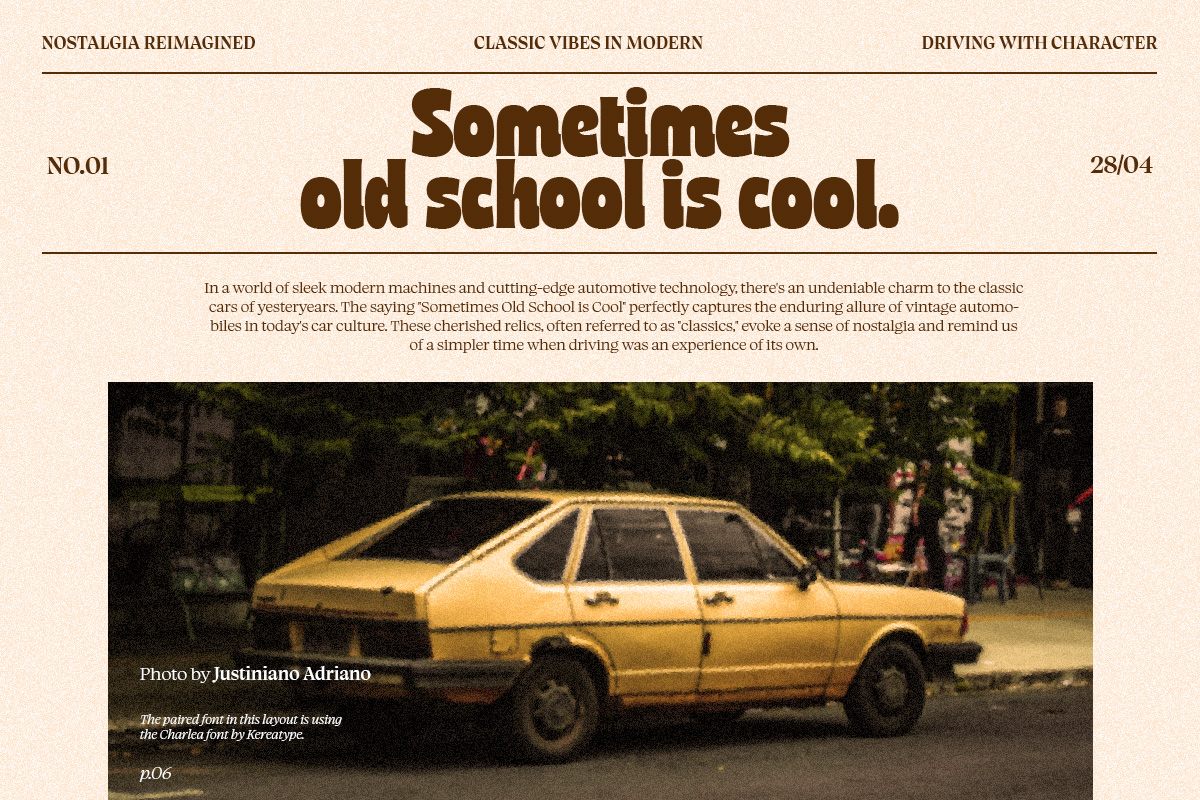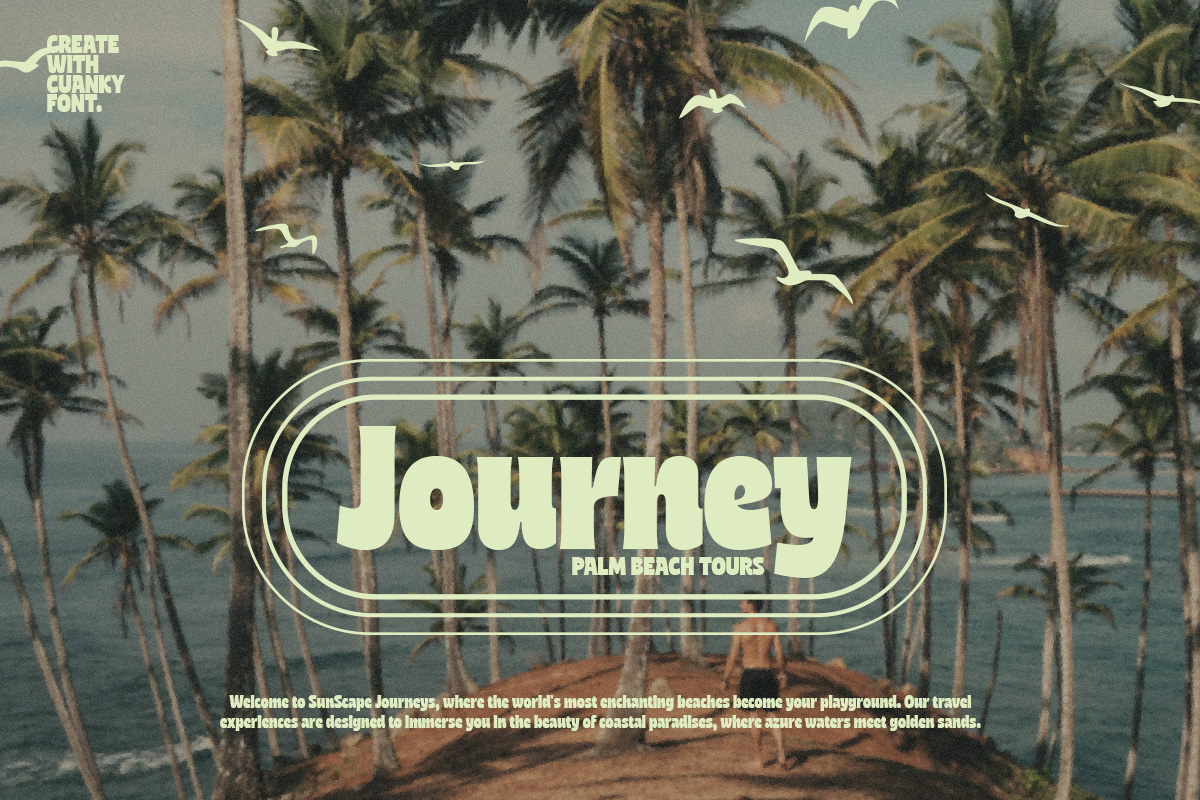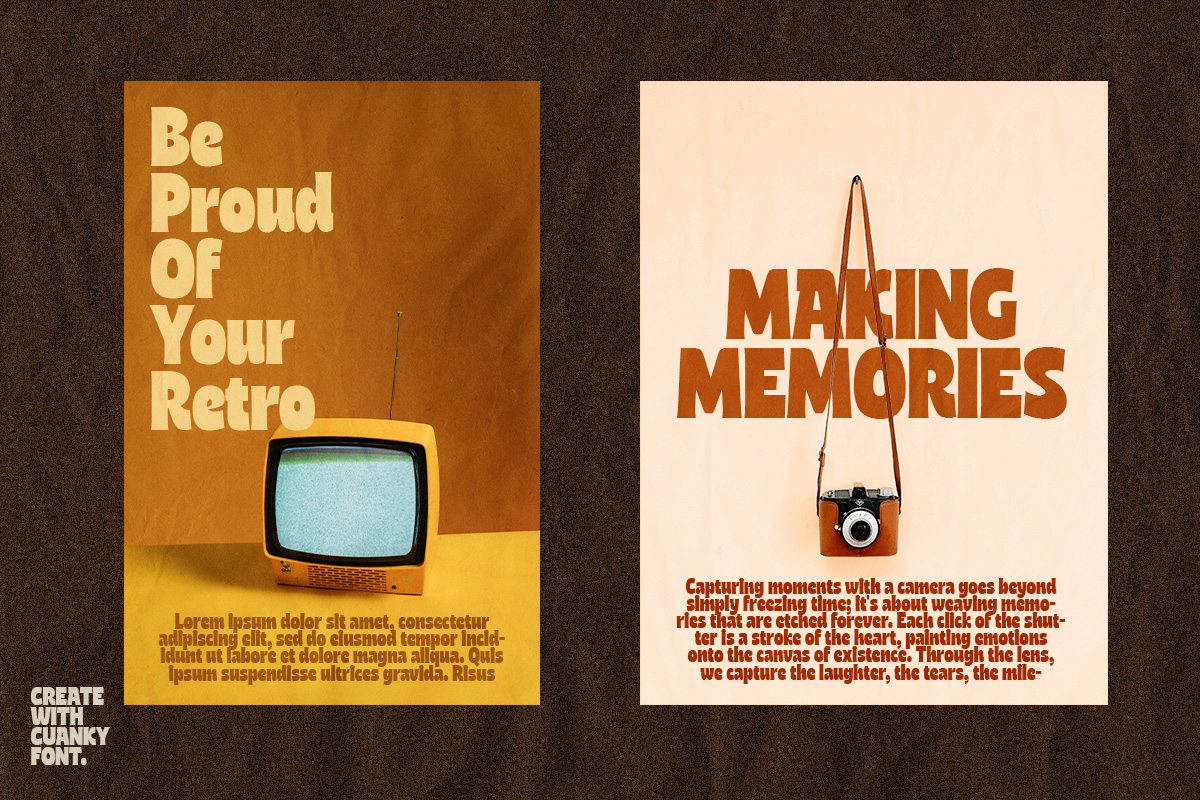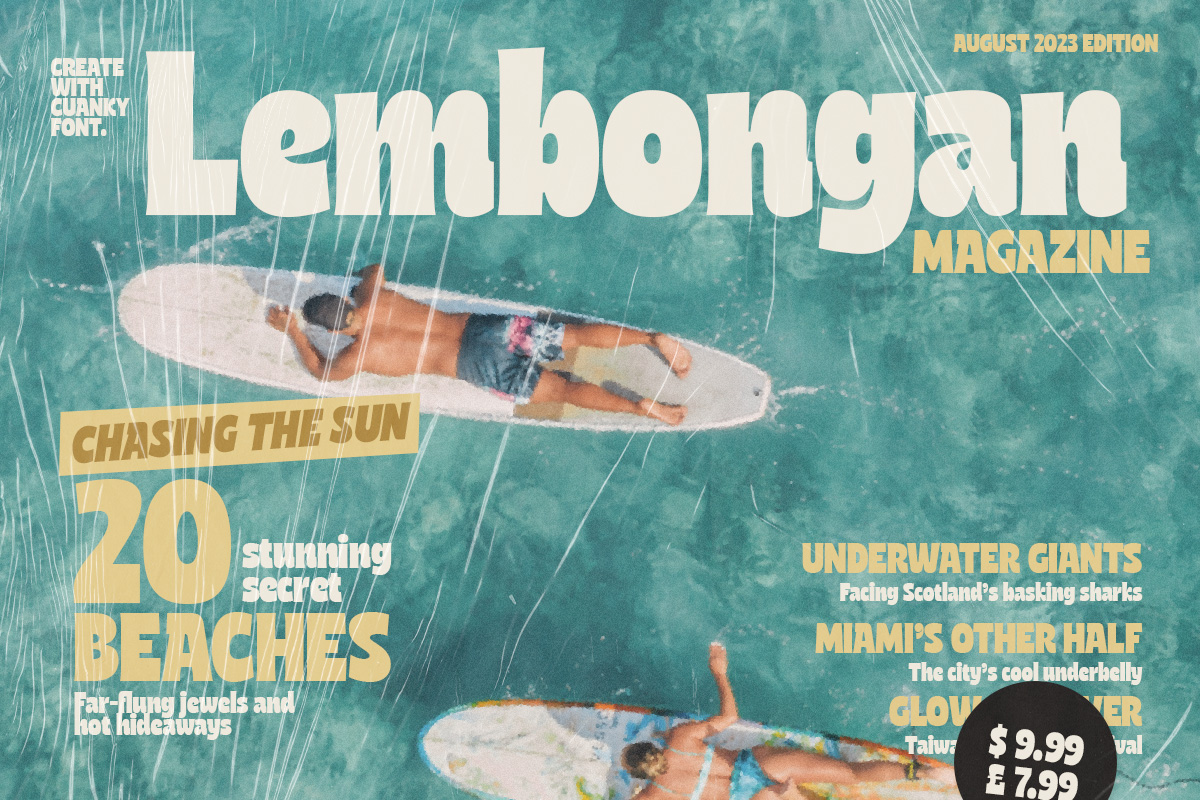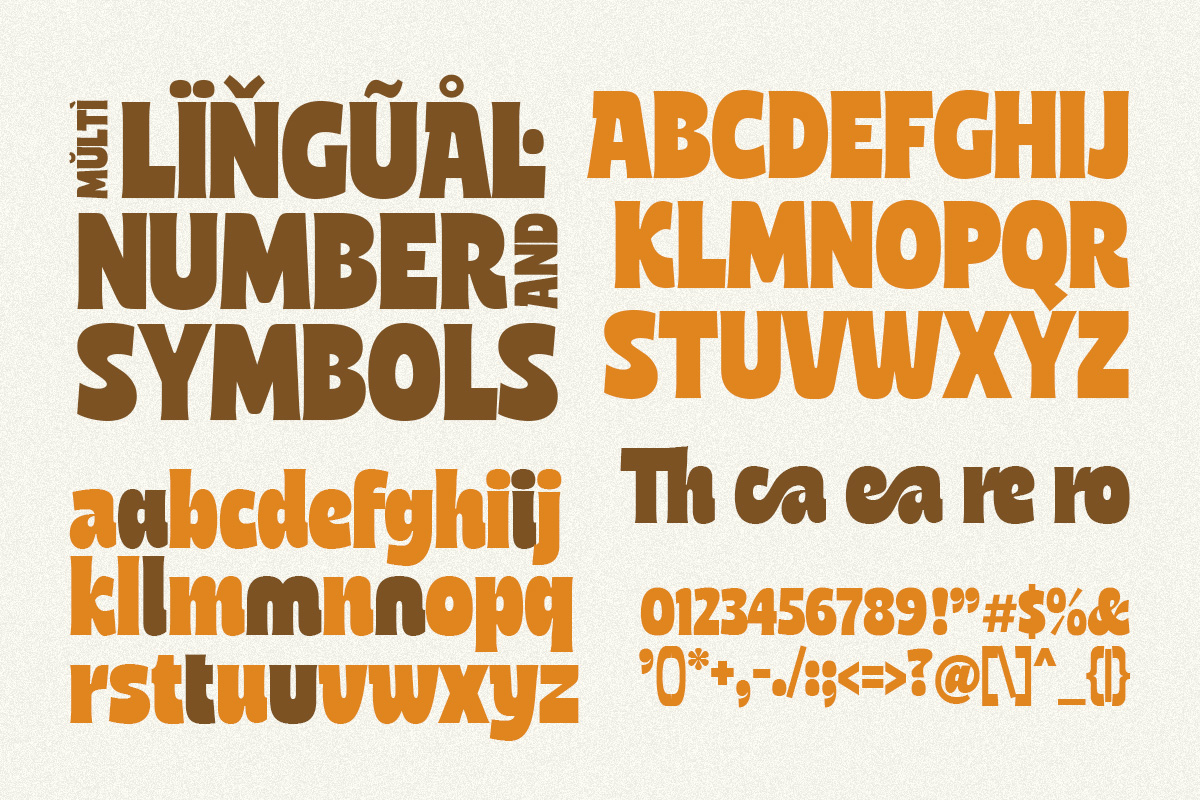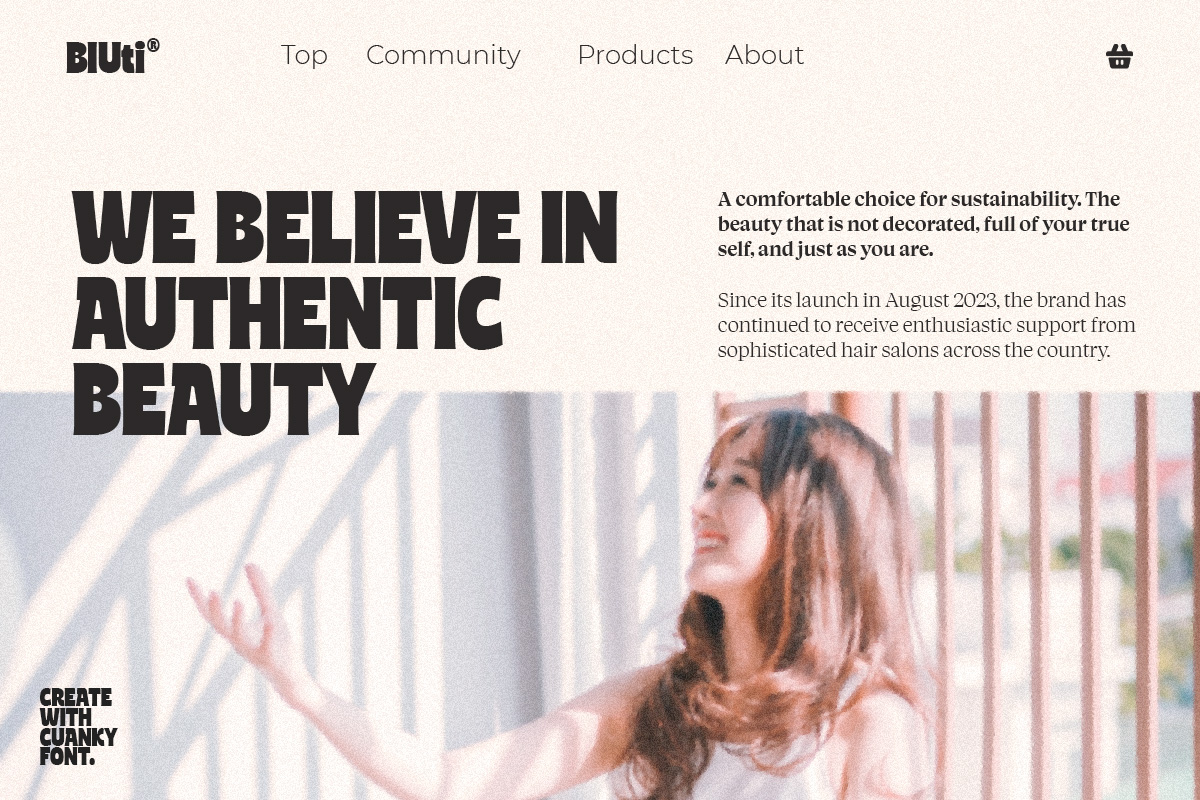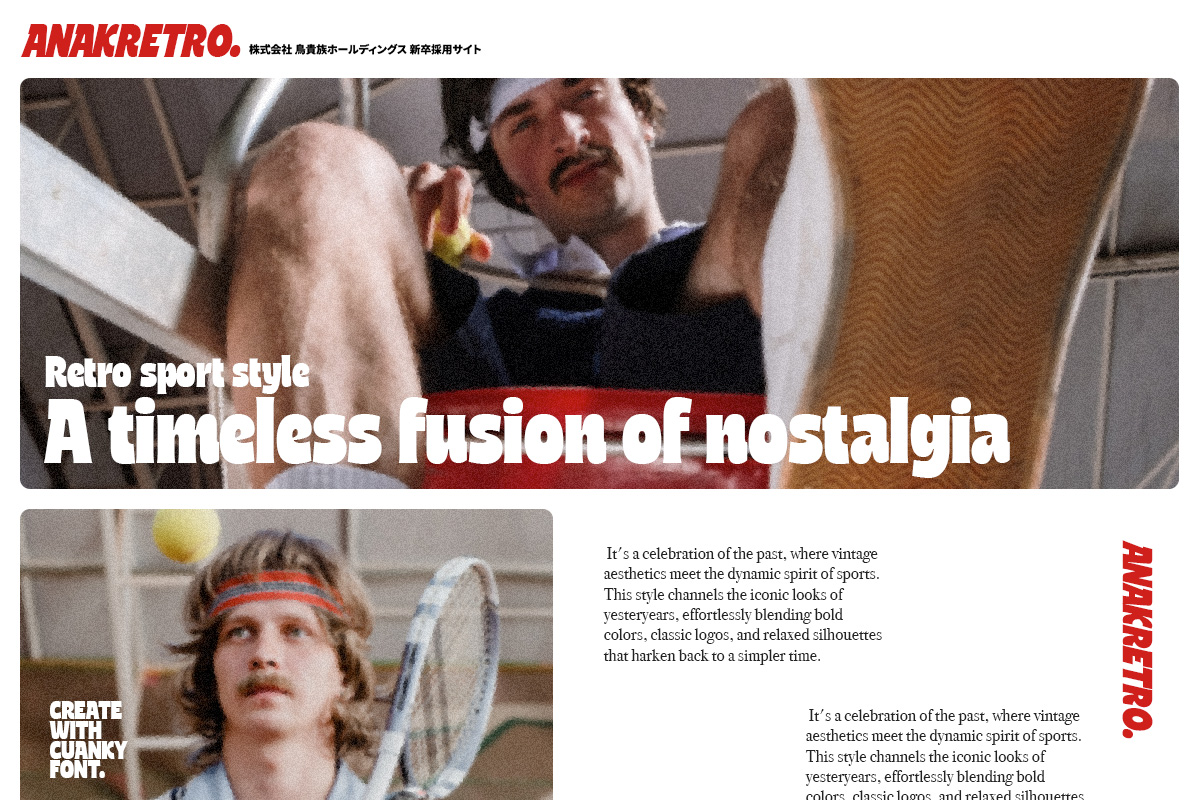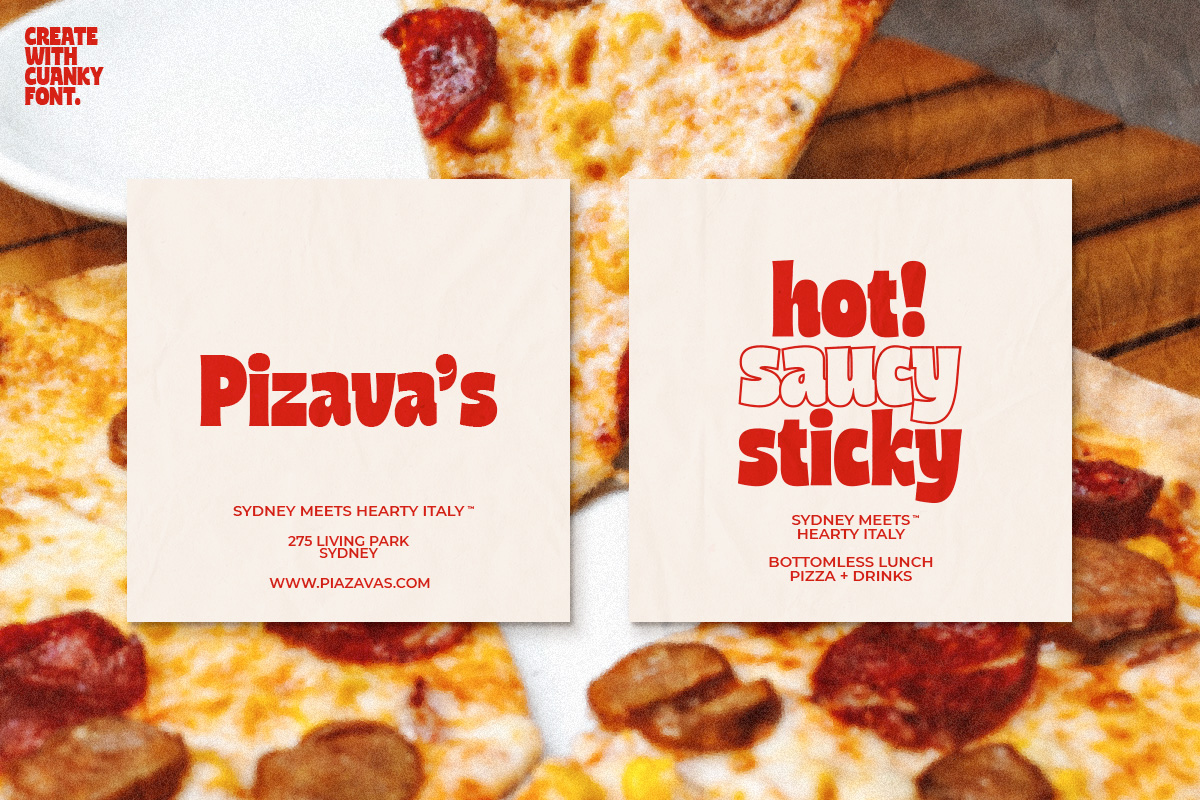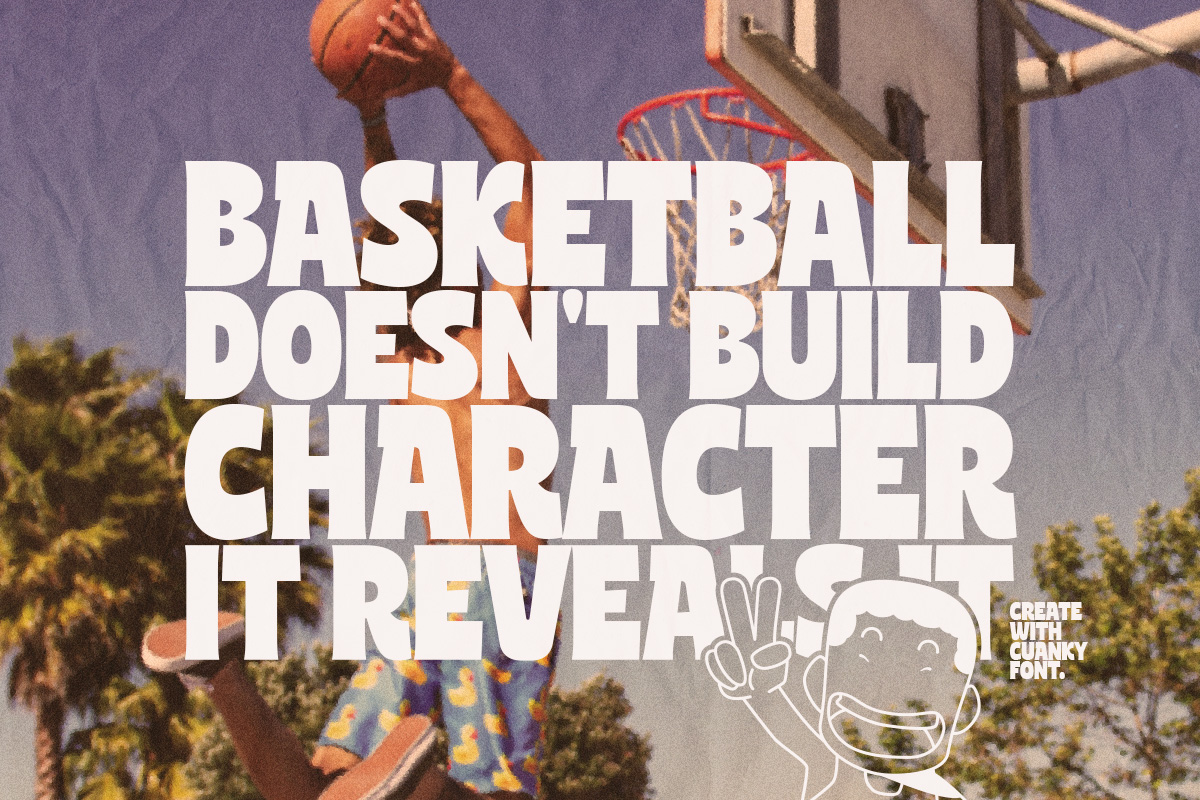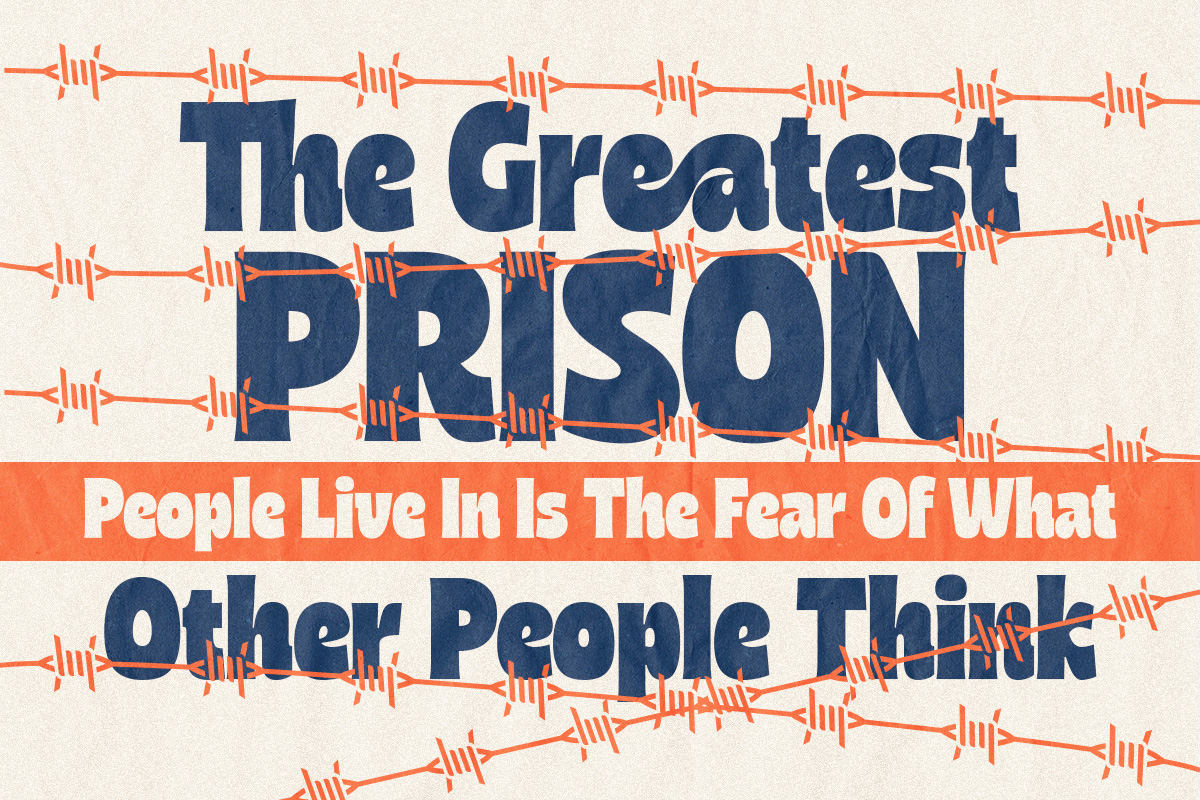
Cuanky
A Playful Retro Sans Serif With Chunky Rounded Letterforms Perfect For Food Branding, Snack Packaging, And Bold Event Posters.
Playful Retro Chunky Bold Sans Serif
Cuanky is a vibrant, retro-inspired sans serif with subtle serifs that effortlessly blends warm nostalgia with a playful futuristic edge. Available in regular and italic styles, this font is defined by its chunky, rounded letterforms and quirky street-food personality. It is the perfect choice for high-energy branding, especially within the food and beverage industry—ideal for pizza shops, snack packaging, and drink labels. Whether you are designing bold event posters or youthful social media graphics, Cuanky ensures your message is both approachable and unforgettable, delivering a fresh, bold flavor to every creative project.